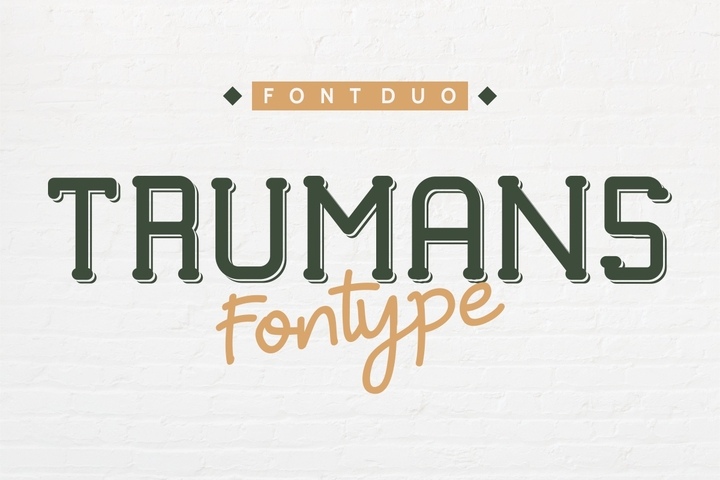
Trumans Font
Trumans Font is perfect for American historical projects, presidential campaigns, patriotic branding, governmental documentation, political memorials, civic organizations, democratic institutions, constitutional materials, leadership communications, and authentic American heritage designs.
What makes Trumans Font exciting is its presidential authority that embodies American democratic leadership and constitutional strength through authoritatively crafted letterforms. This distinguished typeface combines political gravitas with accessible communication, creating a personality that communicates integrity, decisiveness, and genuine American values. The font's presidential character and democratic appeal make it perfect for political organizations, civic institutions, and American brands seeking to evoke the steadfast leadership of the Truman era and the enduring principles of American democracy.
The Trumans Font family includes Regular, Bold, Light, Medium, Presidential, Democratic, Condensed, and Constitutional variants. Each weight maintains the font's presidential character while providing comprehensive typographic flexibility for political brand identity systems and American design applications across diverse civic platforms.
Whether you're developing political brand identities, creating American heritage materials, designing governmental documentation, or building patriotic campaigns, Trumans Font delivers unmatched presidential appeal and American sophistication. Its authoritative presence makes it perfect for political parties, historical societies, civic organizations, and American institutions seeking authentic presidential representation.
The font's commanding proportions and presidential details create an inspiring reading experience that honors American democratic tradition and constitutional principles. Each letterform has been carefully crafted to convey reliability, strength, and democratic leadership that resonates with citizens seeking trustworthy governance and authentic American values.
This versatile typeface excels in political environments, offering designers the authority needed for comprehensive American brand communication strategies. The extensive character set includes presidential alternates, democratic ligatures, and constitutional symbols for political market positioning and American brand storytelling.
Embrace the power of democratic design that celebrates American heritage and constitutional governance excellence.